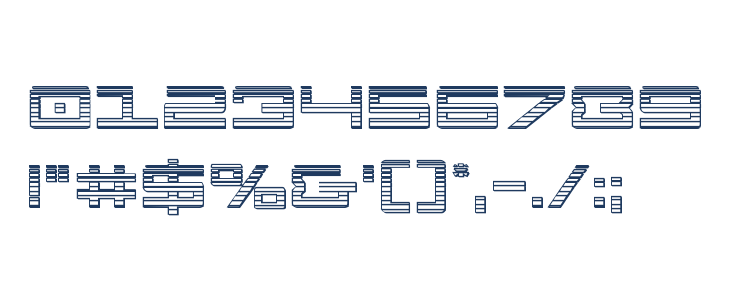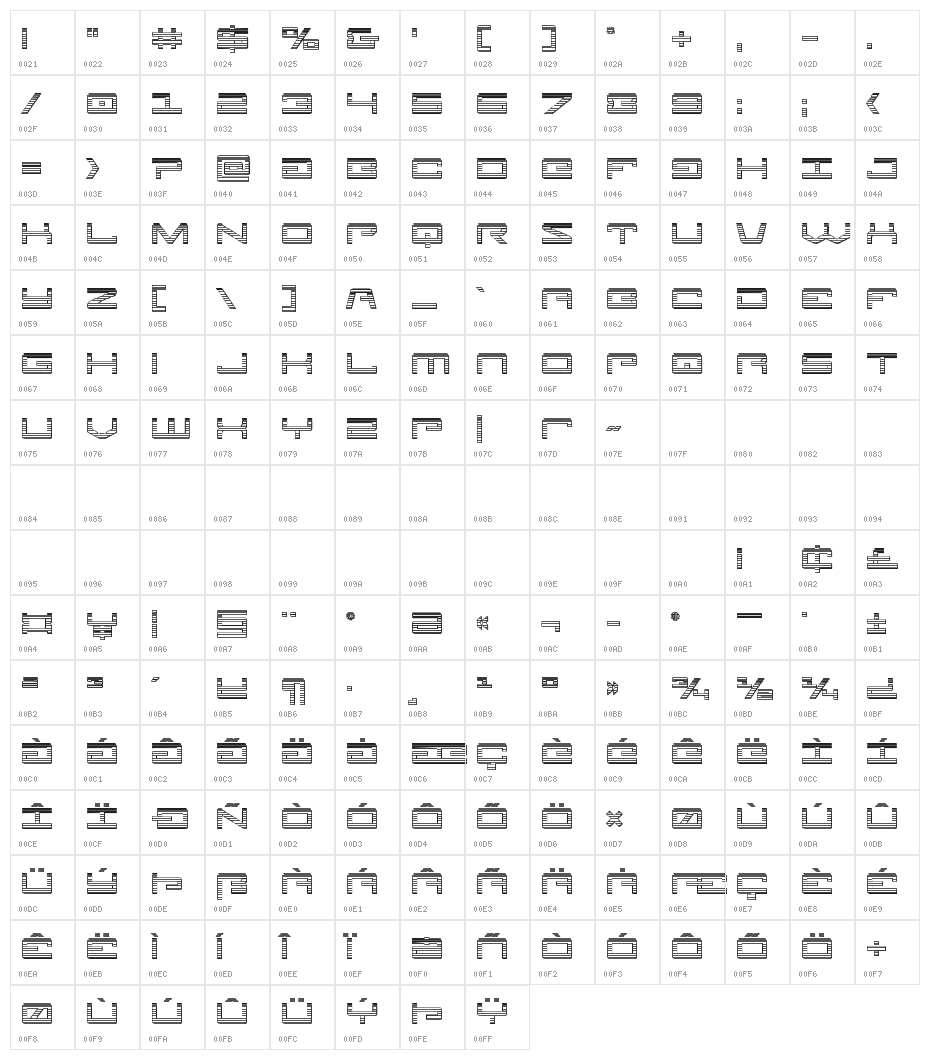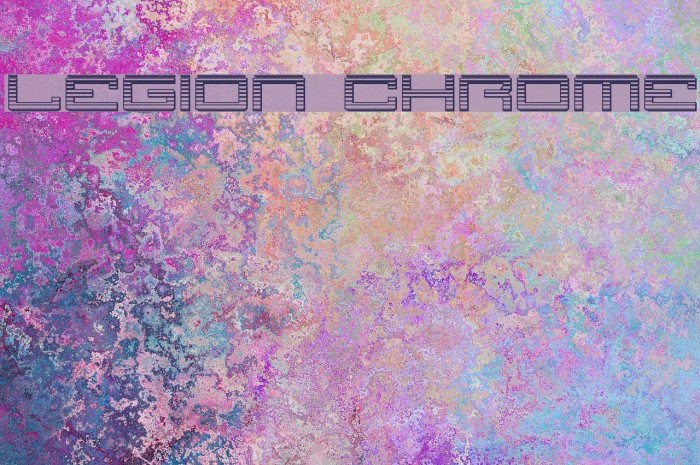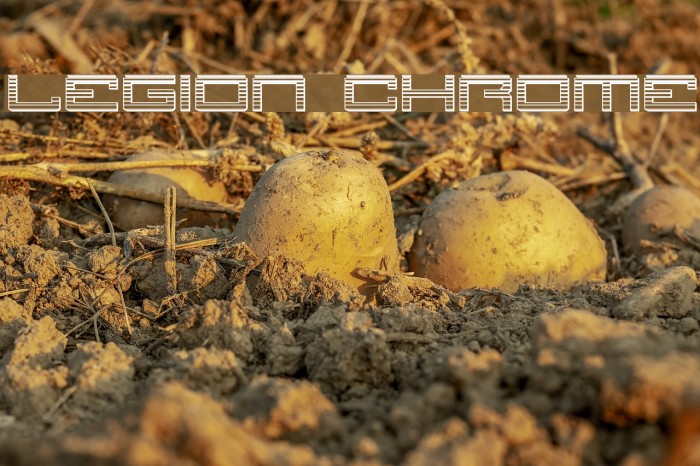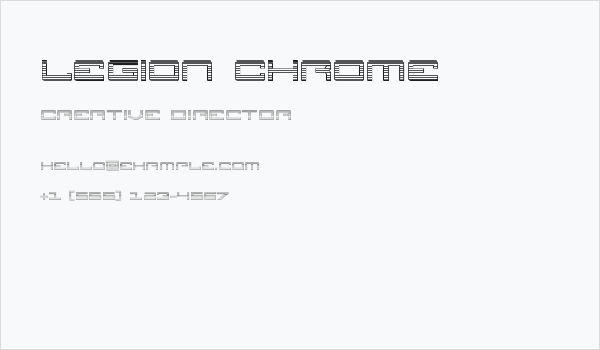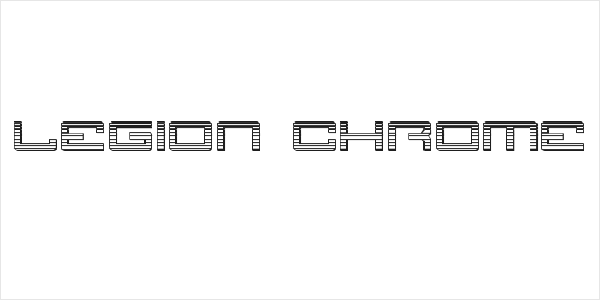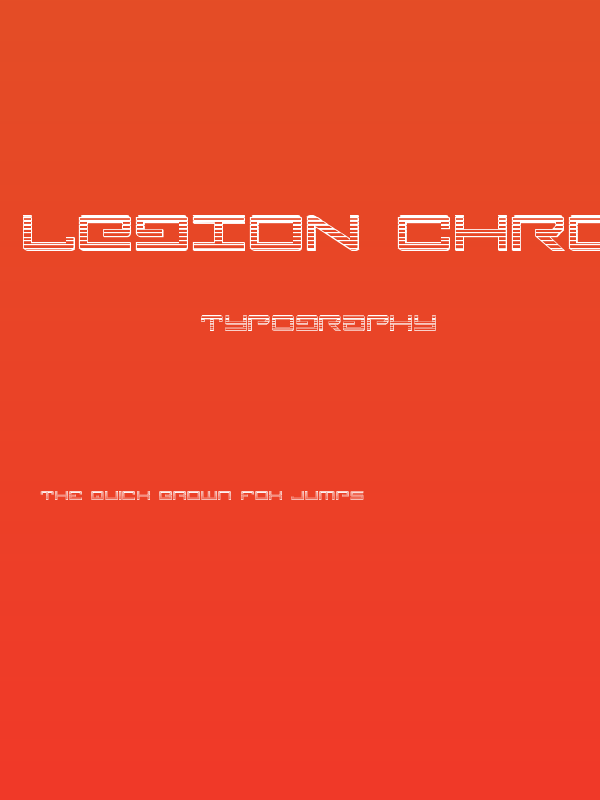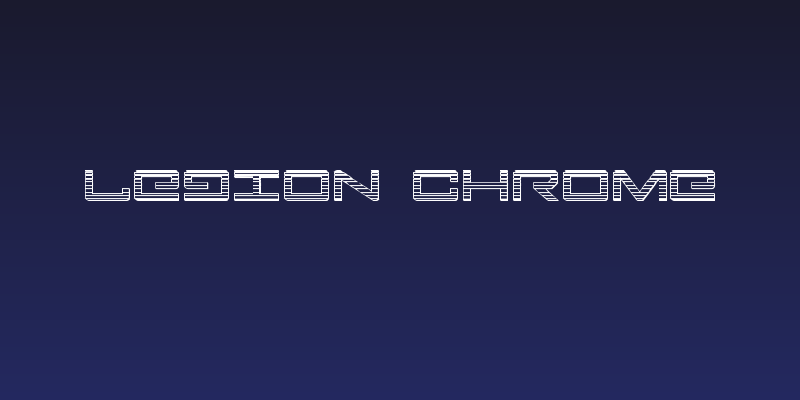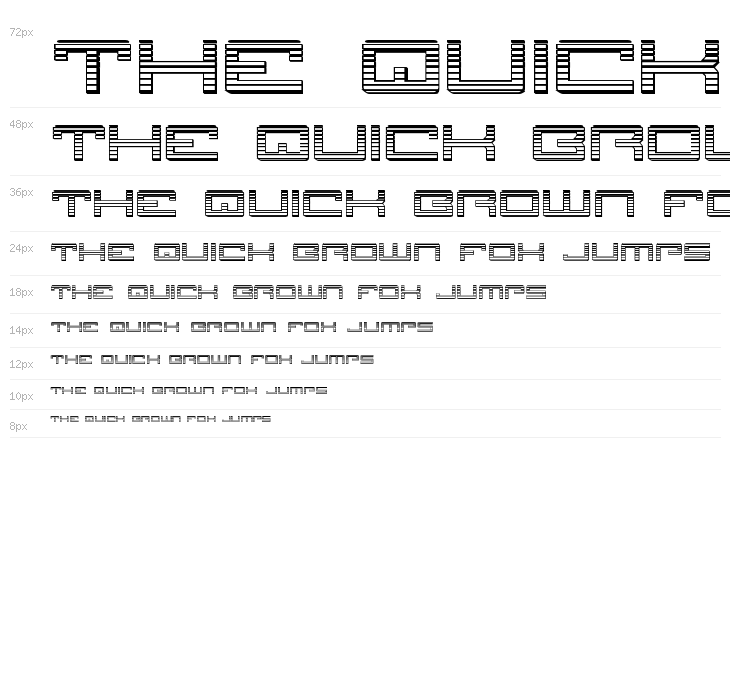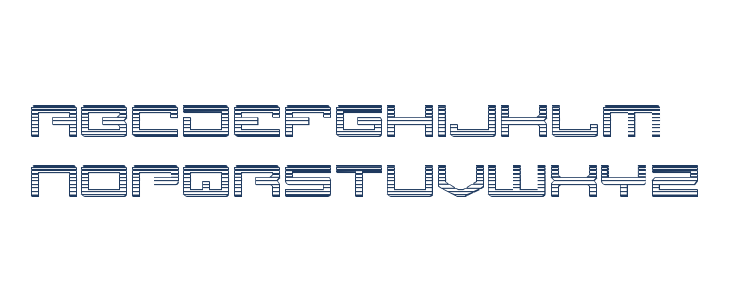
Legion Chrome Font
Legion Chrome Description
This font features a futuristic and industrial design, characterized by its bold, geometric shapes and intricate line patterns. Each character is constructed with a series of parallel lines that create a sense of depth and dimension, reminiscent of chrome or metallic surfaces. The uppercase and lowercase letters maintain a consistent style, with angular edges and a uniform width that gives the font a cohesive appearance. The numbers and special characters follow the same design principles, ensuring a harmonious look across all glyphs. This font is ideal for projects that require a modern, tech-inspired aesthetic.
| Proposed Projects | Ideal for technology branding, sci-fi movie posters, video game titles, and modern product packaging. |